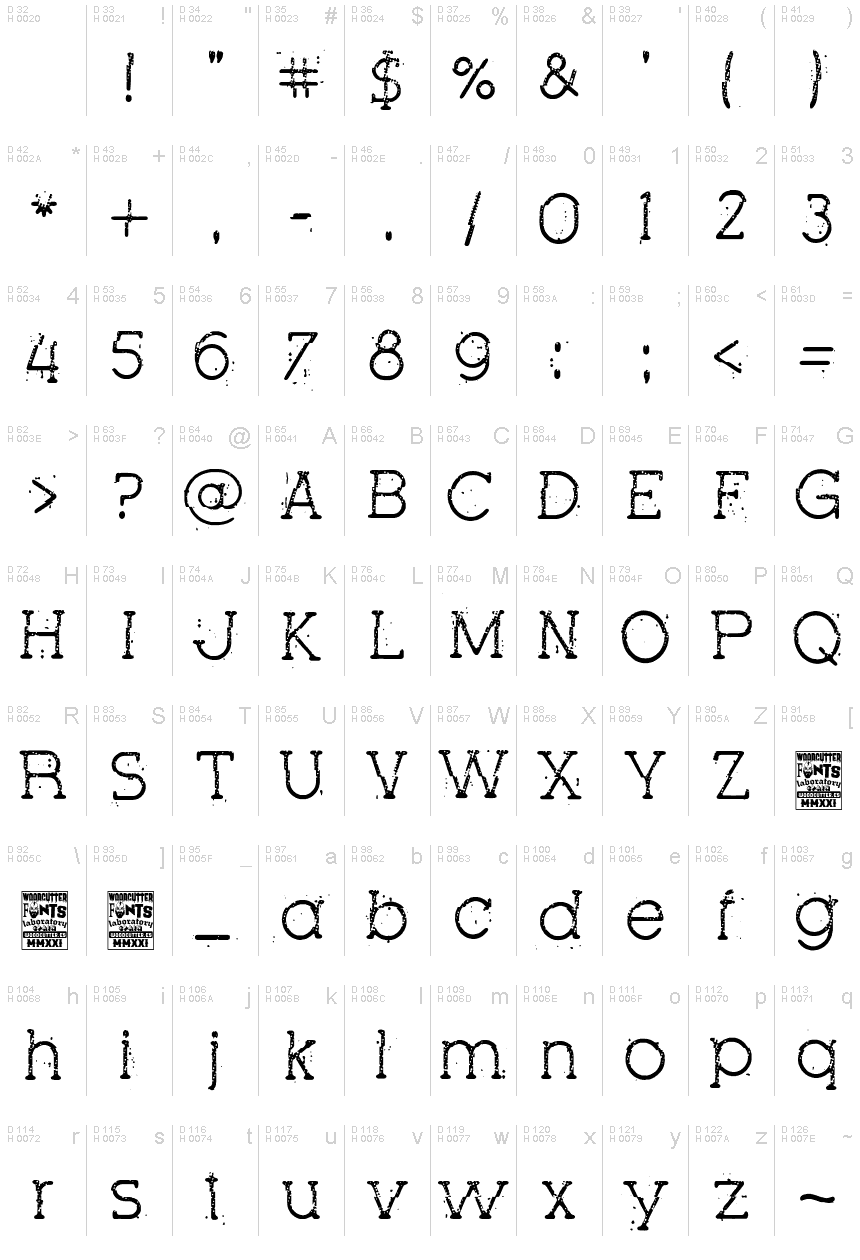
Pink Secrets
Pink Secrets, created by the talented designer Woodcutter, is a display font that packs a punch. With its distorted and eroded style, this light-weight typeface brings an edgy and grungy vibe to any project it's used in. Perfect for album covers, event posters or even social media graphics - Pink Secrets will add a touch of rebellion to your designs. Its unique and eye-catching appearance ensures that your message won't be missed. Use it for fashion campaigns or music festivals to make a statement - this font is versatile and works well across many industries. Get creative with Pink Secrets and watch your projects come alive!